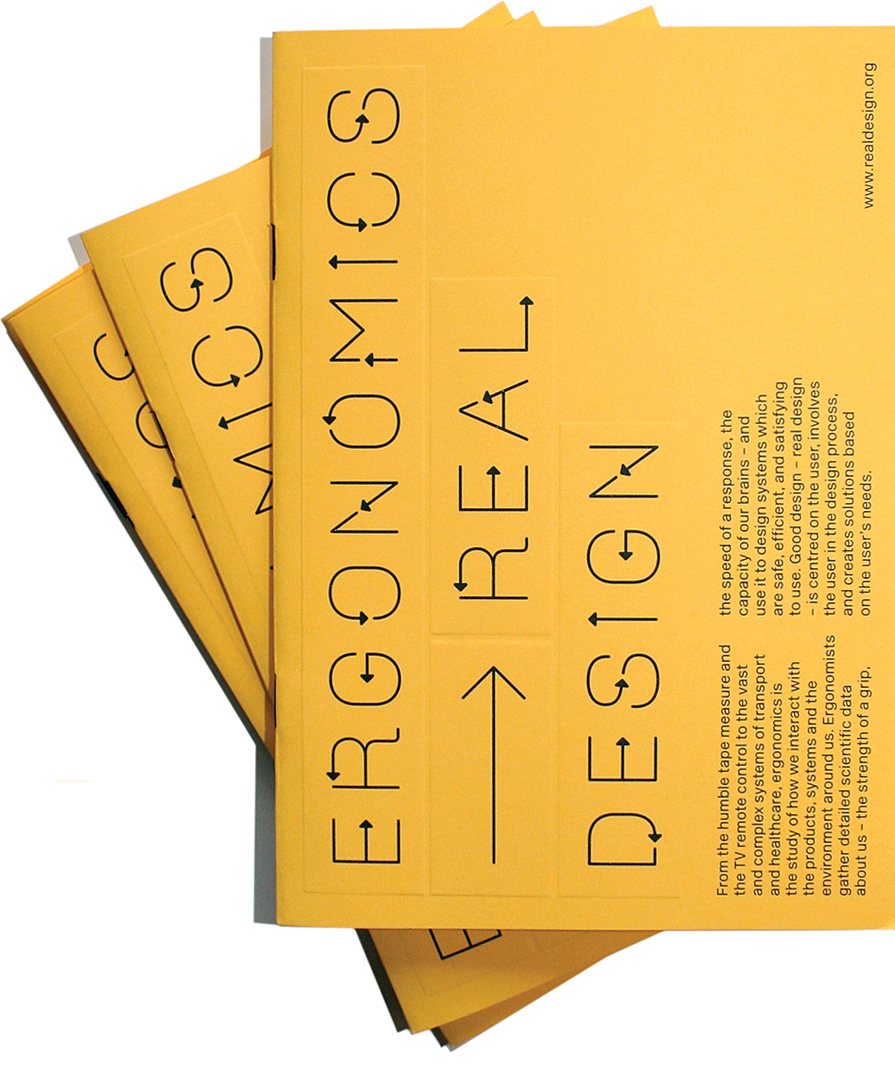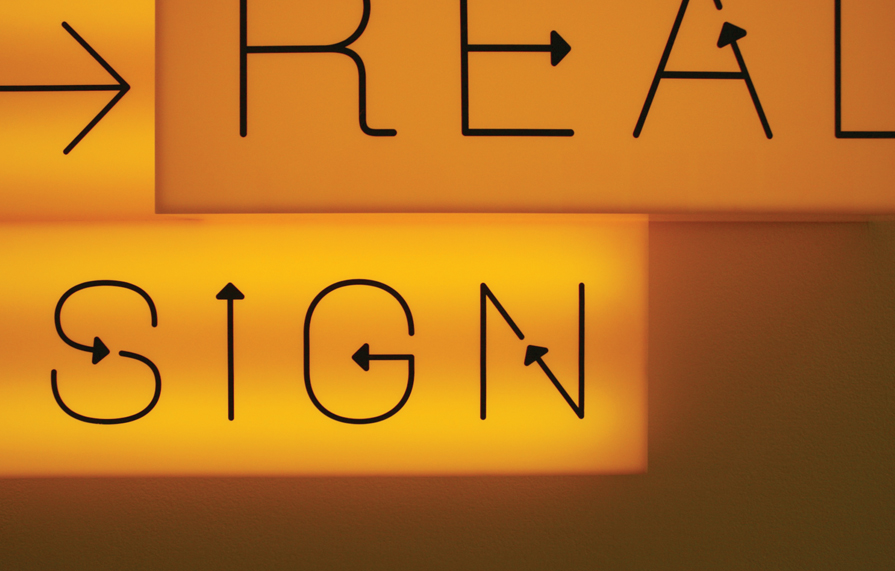
Designed as a display and signing face for the exhibition ‘Ergonomics – Real Design, 2009–10’, shown at the Design Museum in London. Ergonomics is a single style headline font with distinctive arrow terminals.
| Font name: | Ergonomics |
| Font category: | Other |
| Styles: | ERGONOMICS Closed ERGONOMICS Arrows |
| Script: | Latin |
| Manufacturer: | A2-TYPE |
| Designer: | Henrik Kubel |